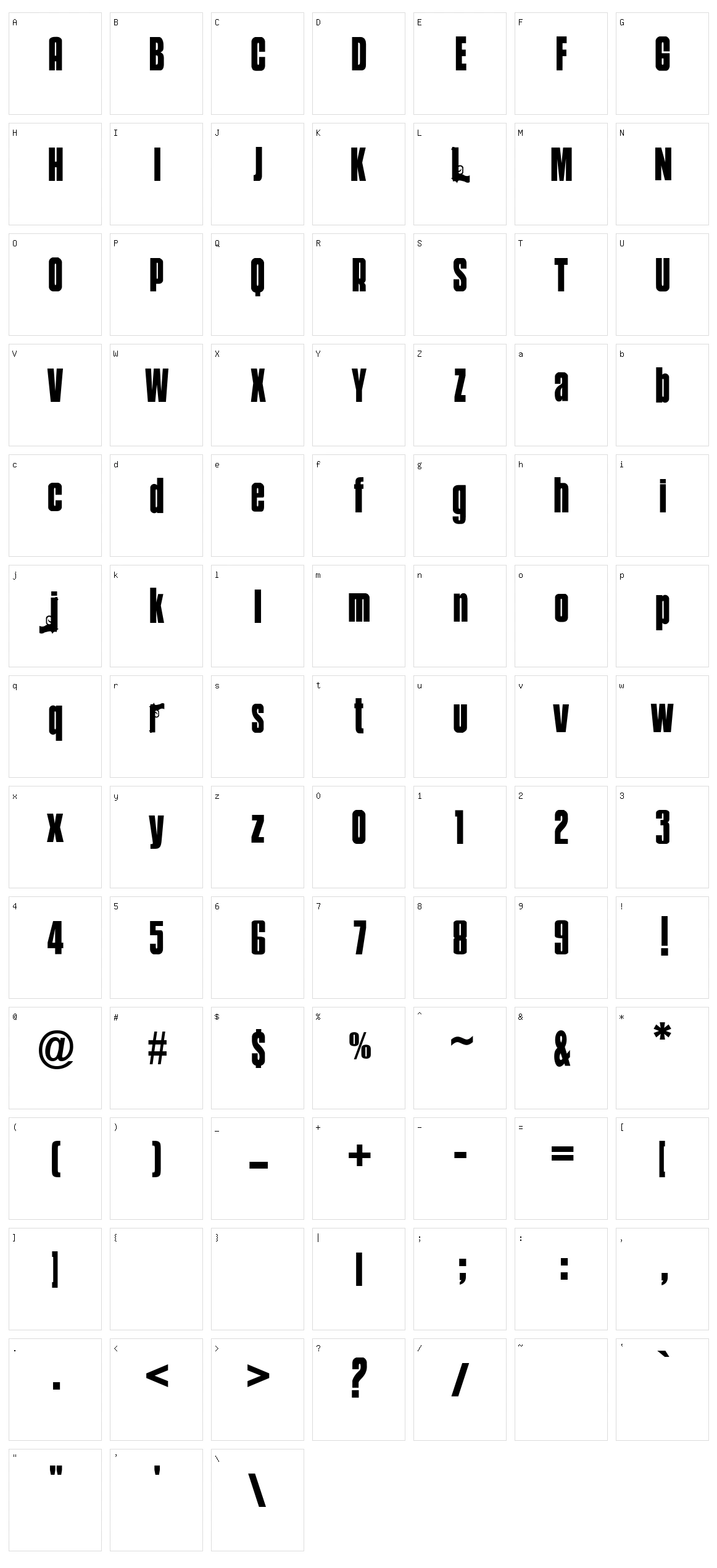
TrueTypeFont: Mobsters
Hey there mafia lovers. This font has got it all! You can smell the Ragu bubbling on the stove
top from next door. If this doesnt scream Italian gun slingin, then rustle my hair and call me
Mustafa. The lowercase "r" and capitals "J" and "L" spell out a gun for your viewing pleasure.